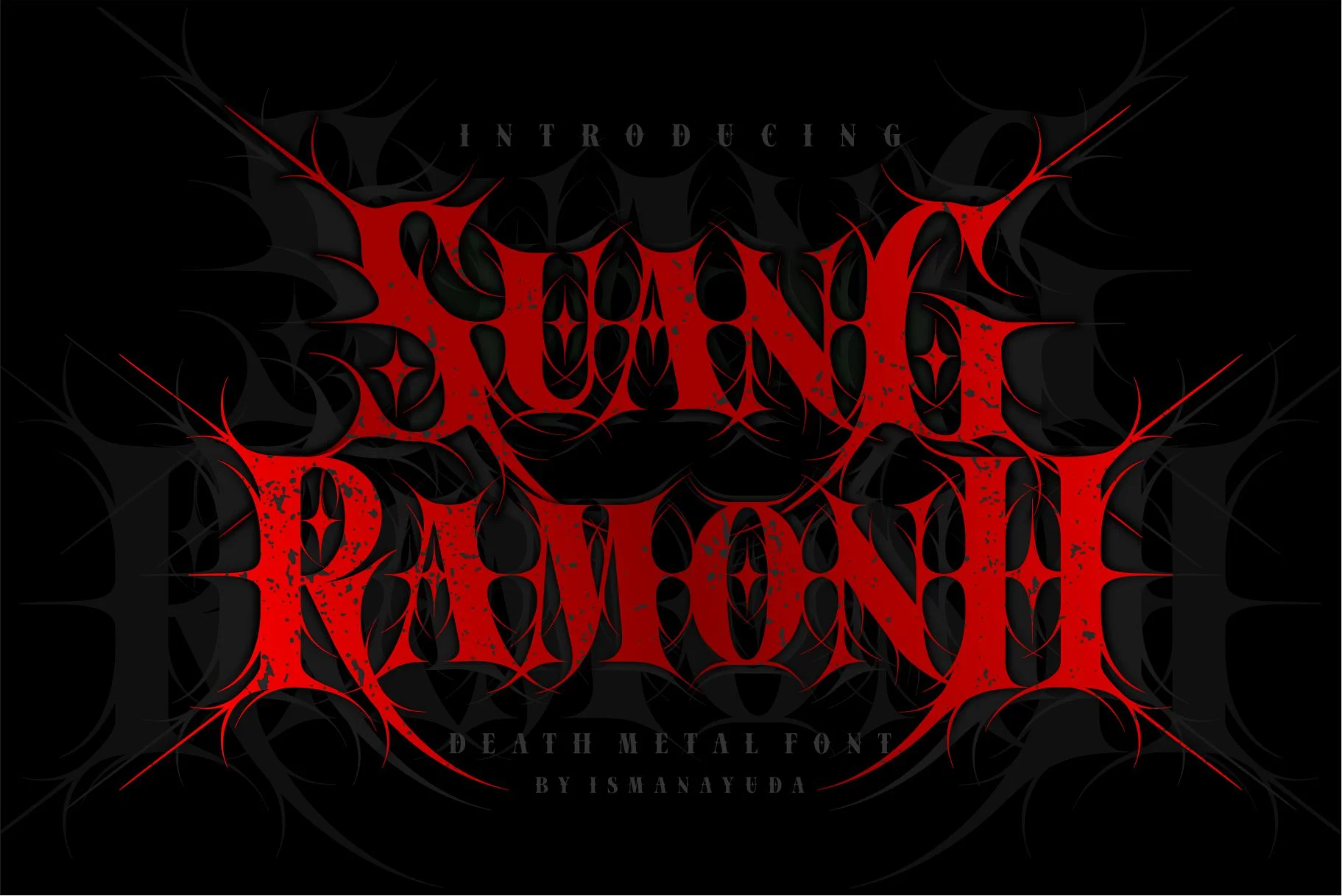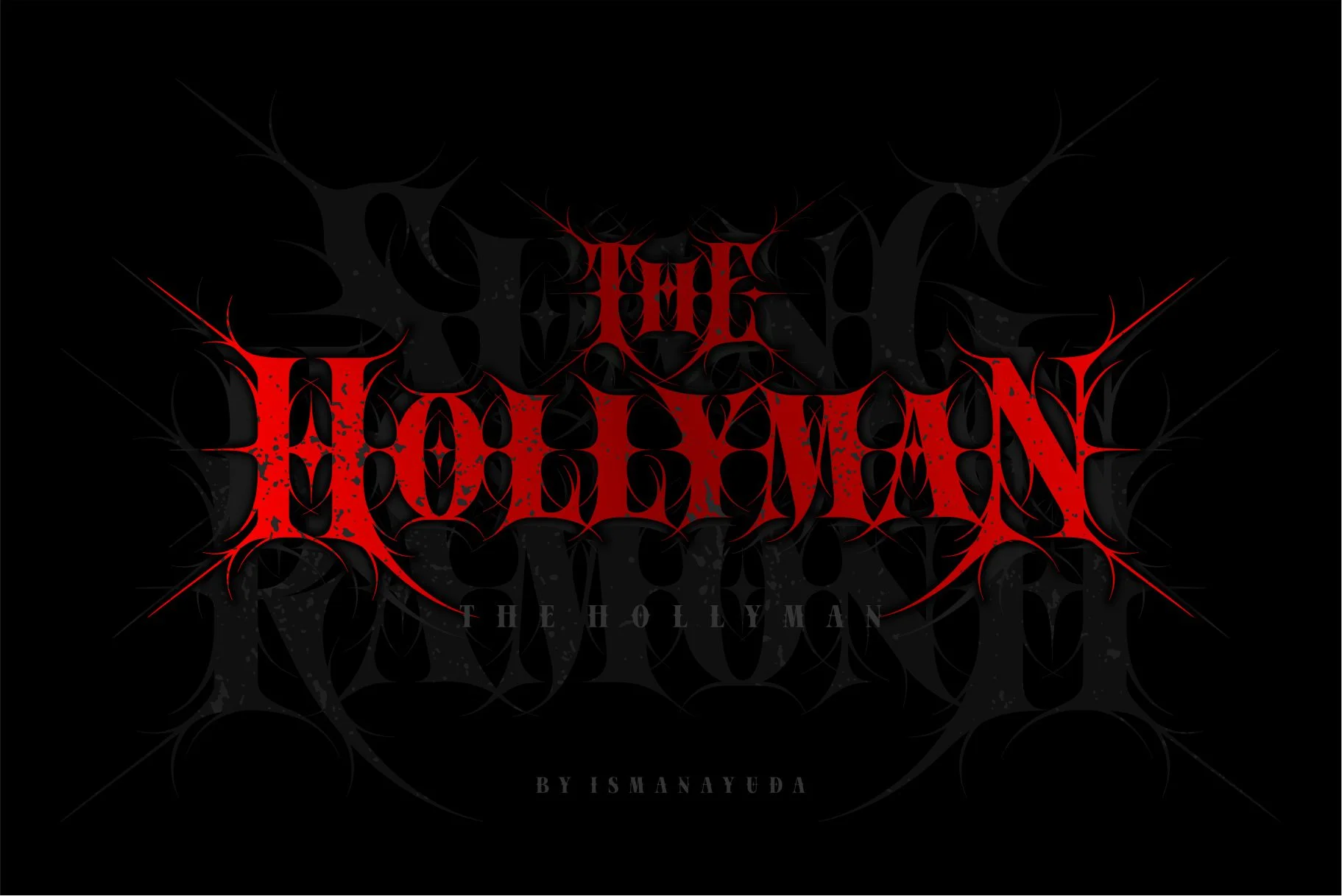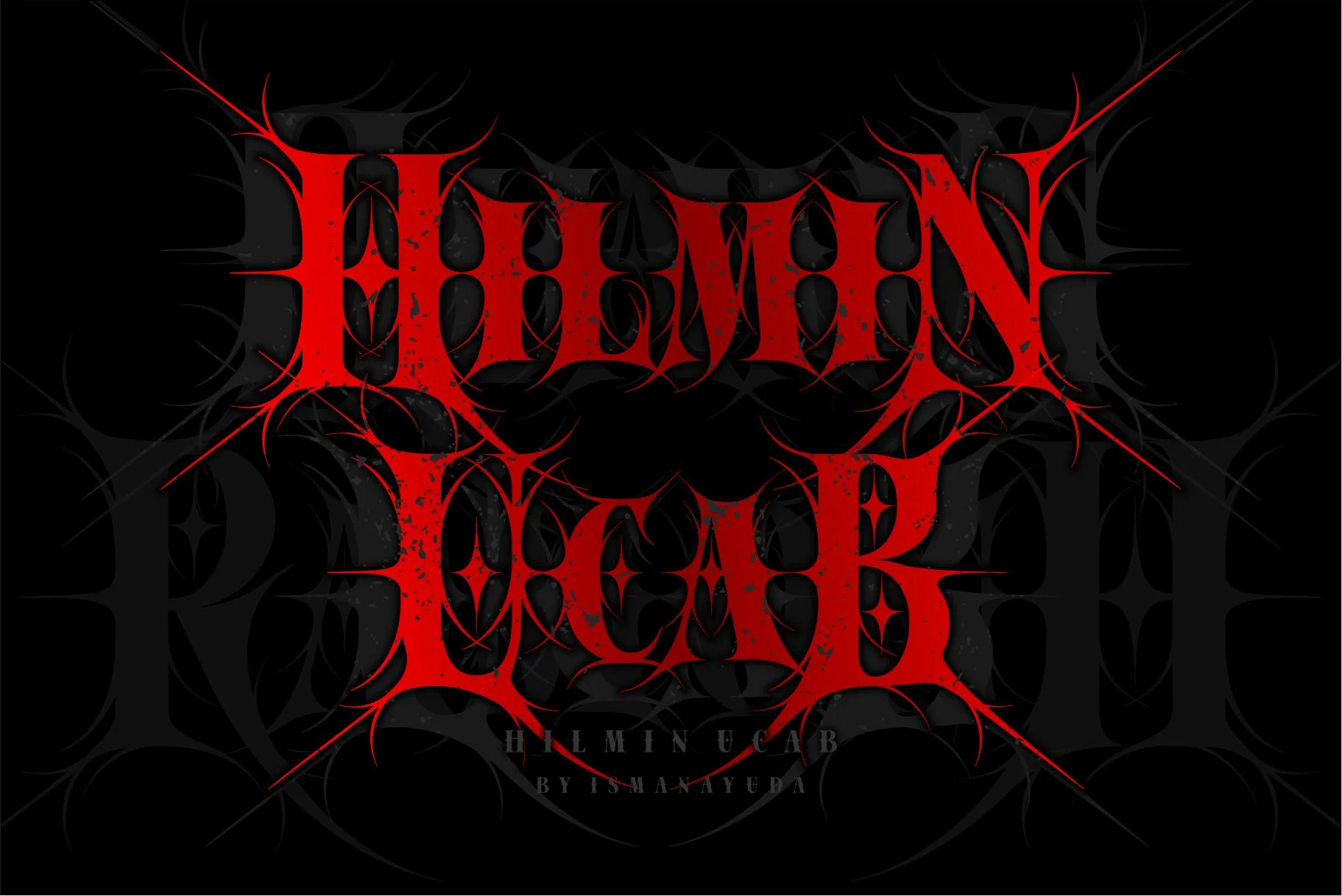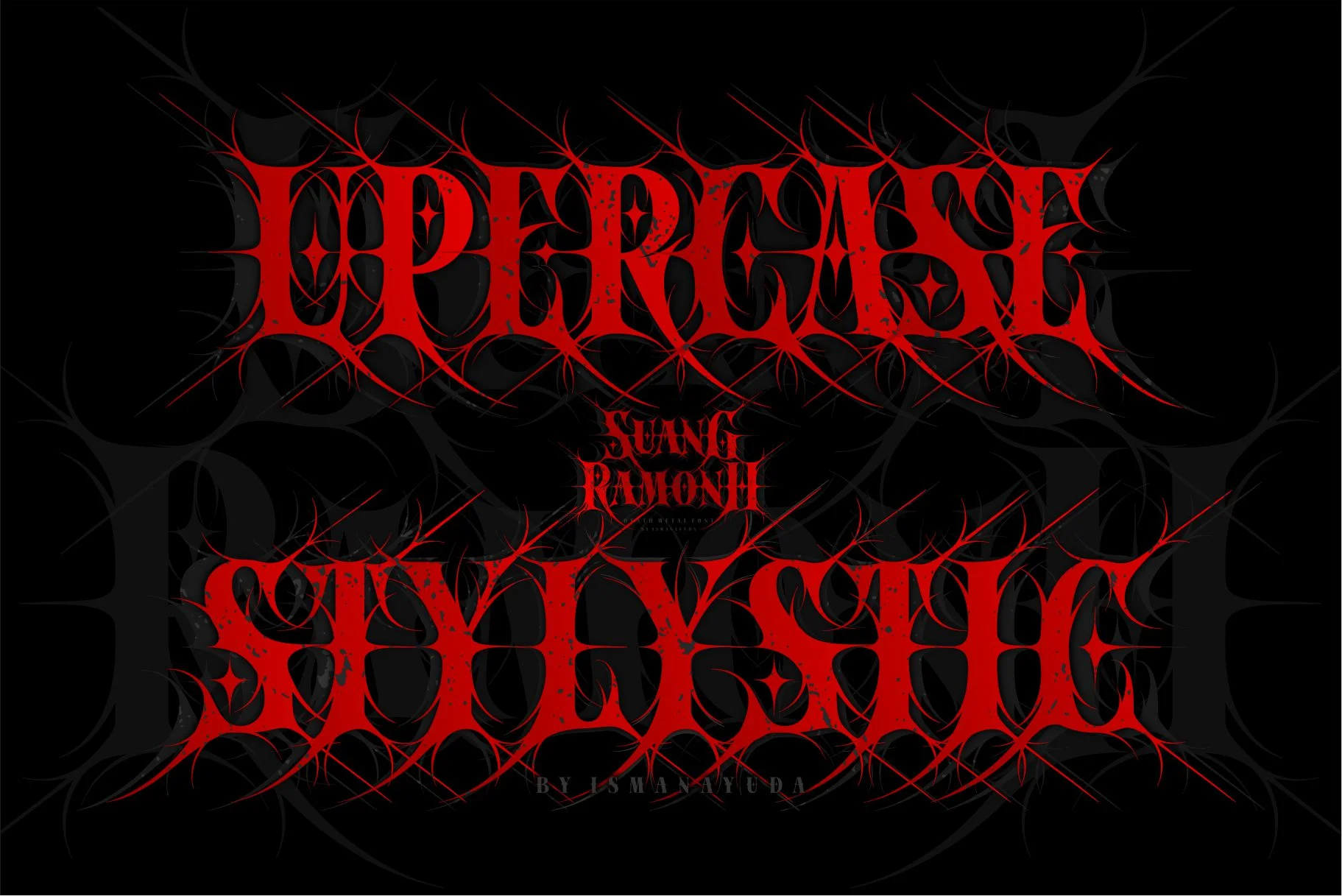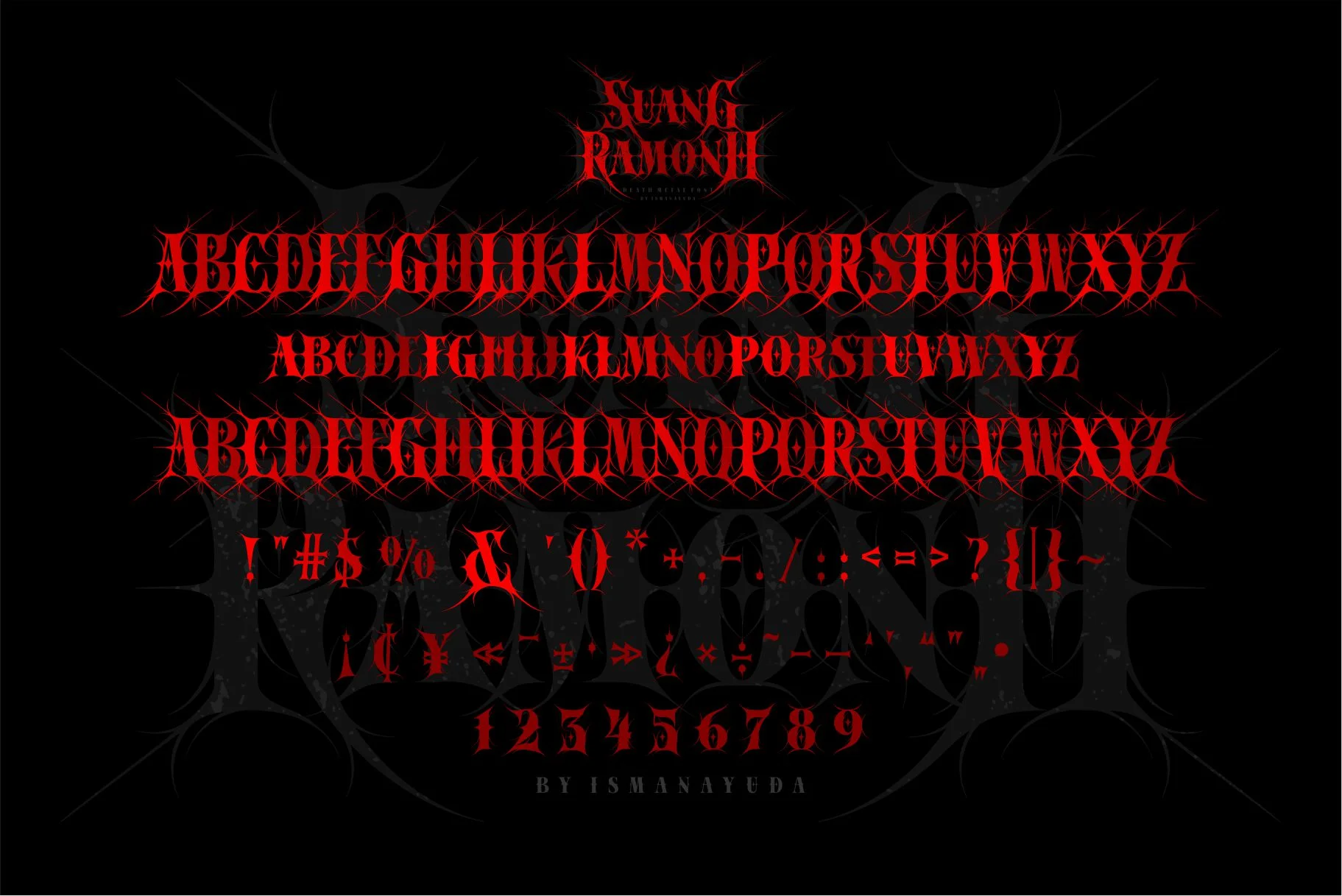
Suang Ramonh
SUANG RAMONH is a bold, decorative typeface that uniquely blends a blackletter foundation with a frightening death metal aesthetic. It is characterized by aggressive, elongated strokes and jagged, thorn-like flourishes that evoke the complex, symmetrical logos often associated with extreme metal genres. Despite its intense and chaotic appearance, the font is designed to be "safe" and readable, making it highly functional for band logos, underground apparel designs, and heavy-themed branding.
Suang Ramonh